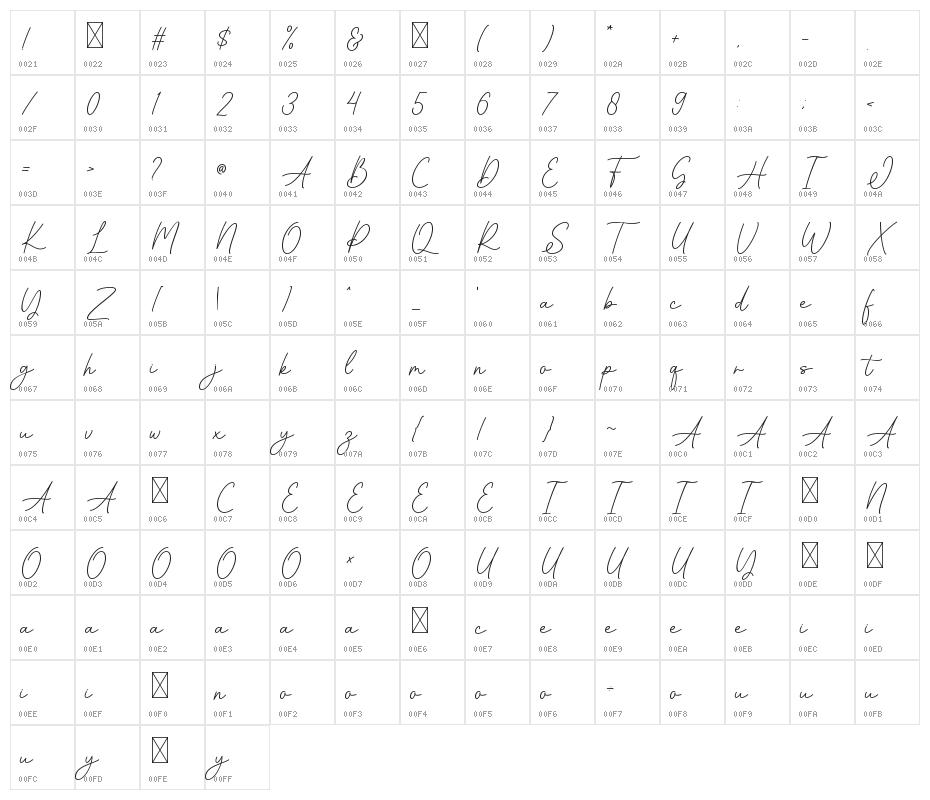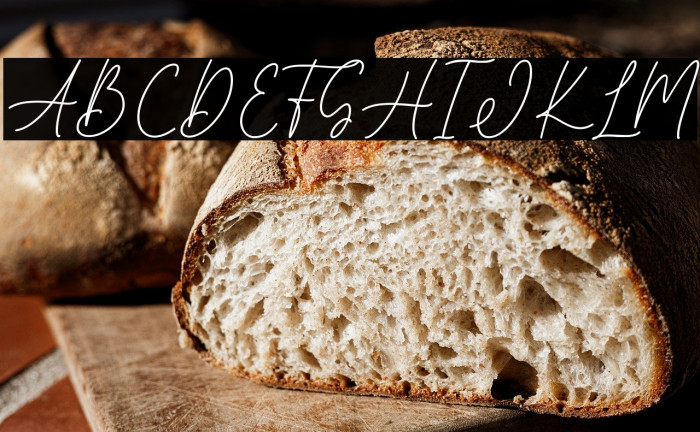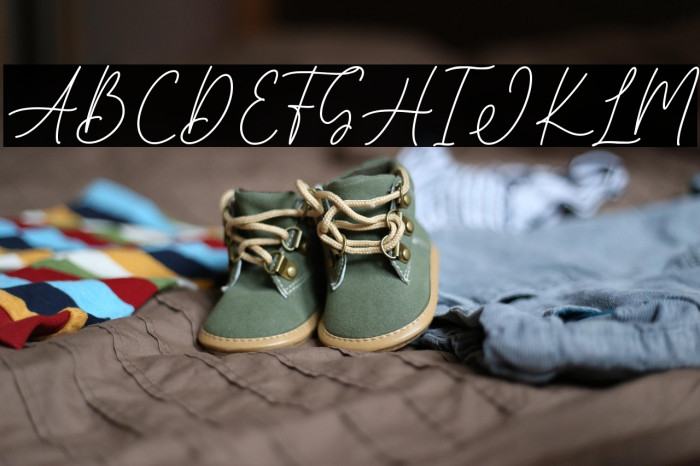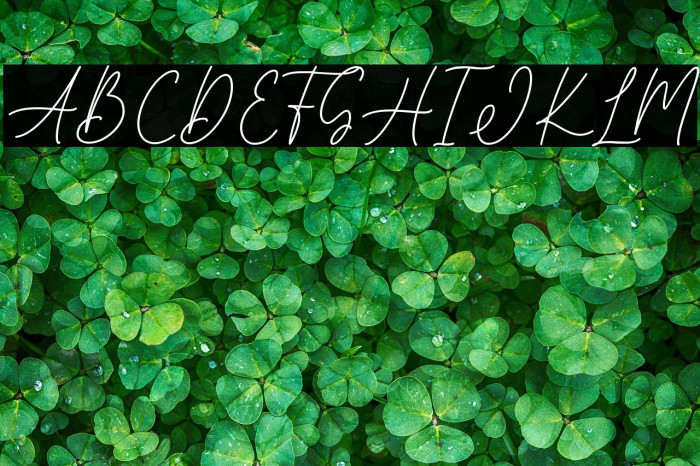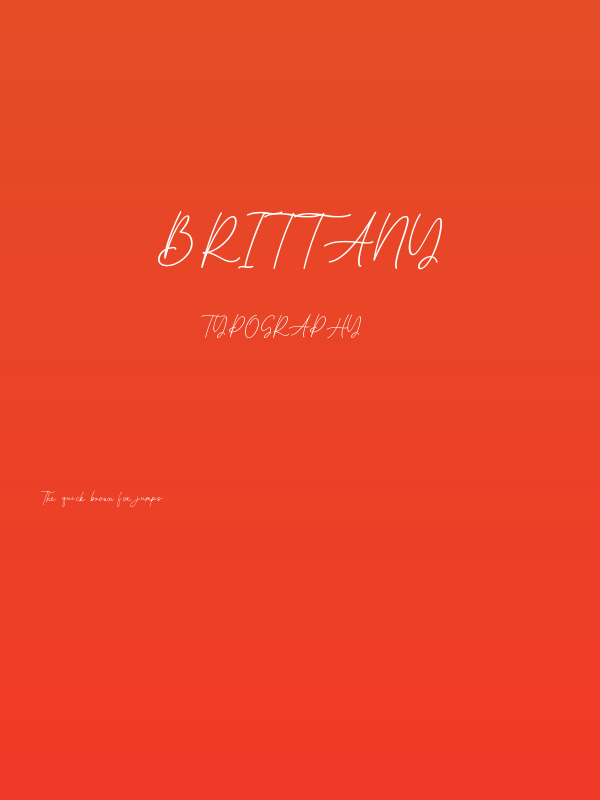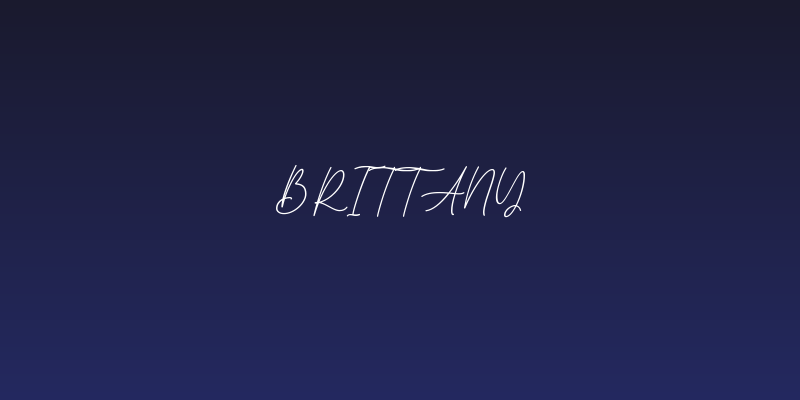
Brittany Font
Brittany Description
This font features a delicate and flowing script style, characterized by its elegant and smooth curves. The letters are connected in a cursive manner, giving it a handwritten appearance. The uppercase letters are tall and graceful, while the lowercase letters maintain a consistent flow with subtle variations in stroke width. The numerals are clear and maintain the same fluid style, ensuring readability. Special characters are thoughtfully designed to match the overall aesthetic, making this font suitable for a variety of creative applications.
| Proposed Projects | Ideal for wedding invitations, greeting cards, personal branding, and elegant logos. |